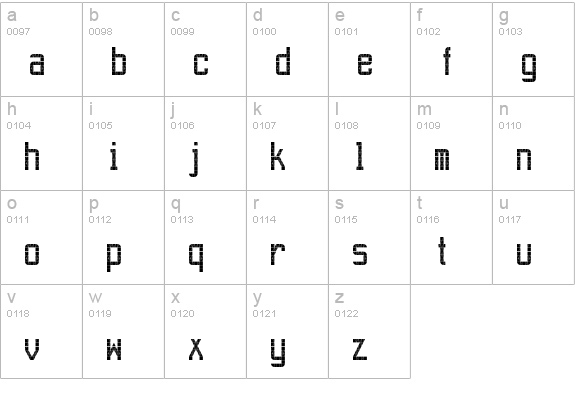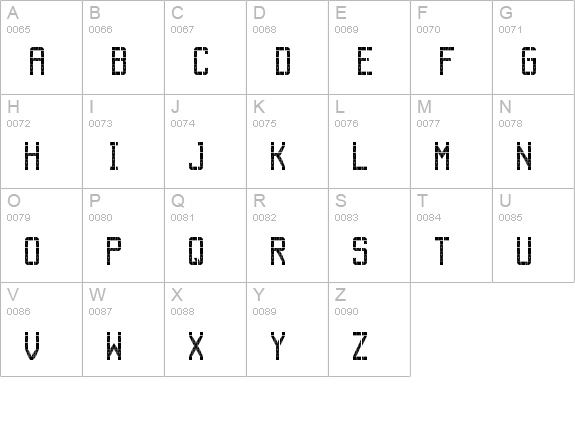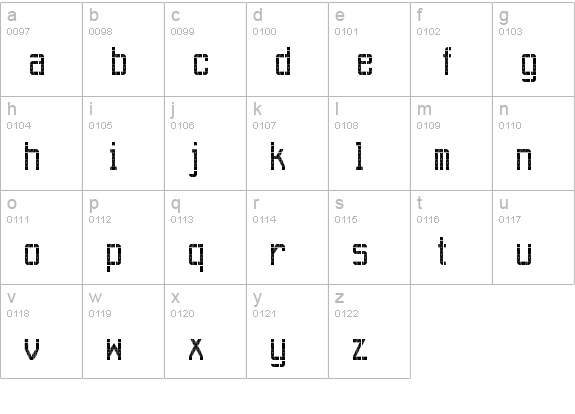
Gateway-A2 Font Details
Introducing Gateway-A2, a stunning and versatile font that is sure to elevate your designs to new heights. With its modern yet elegant aesthetic, Gateway-A2 is perfect for a wide range of projects, from branding to editorial design, social media graphics, and more. This font features clean lines and a sleek design that will make your text pop and grab the attention of your audience. What sets Gateway-A2 apart is not only its striking appearance but also the fact that it is completely free to download. Yes, you read that right - this incredible font is available for free at FontsMarket.com. Whether you're a seasoned designer looking to refresh your font collection or a beginner eager to experiment with new styles, Gateway-A2 is the perfect choice for all your creative endeavors. Don't miss out on the opportunity to enhance your projects with the beauty and versatility of Gateway-A2. Download this amazing font today and let your creativity soar!